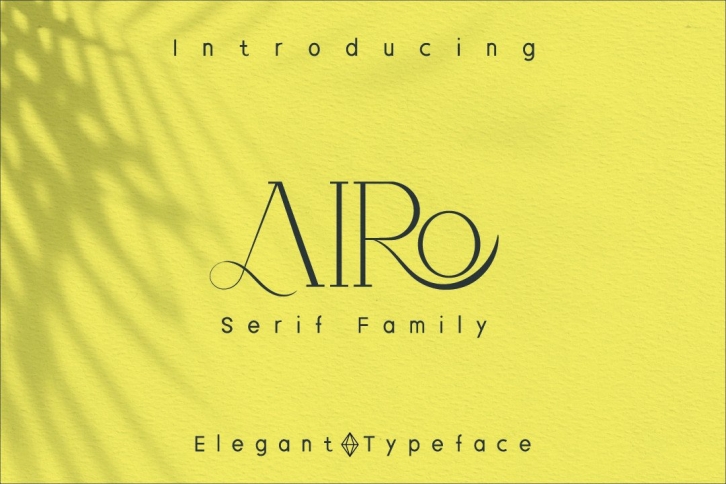
Airo is a stylish and elegant slab serif font. It is defined by smooth curves and is perfect for fashion branding or editorial designs. Use this font for your designs and explore its endless possibilities.